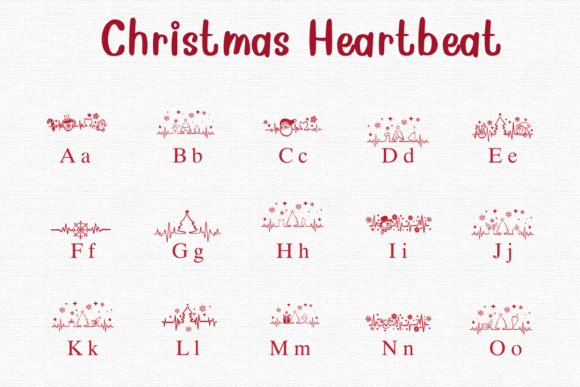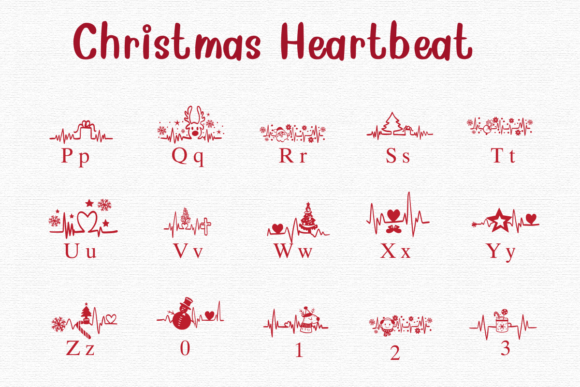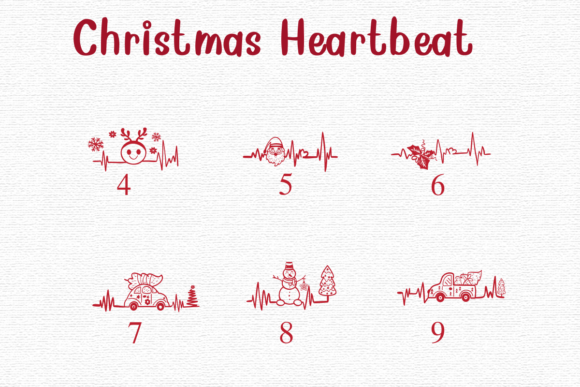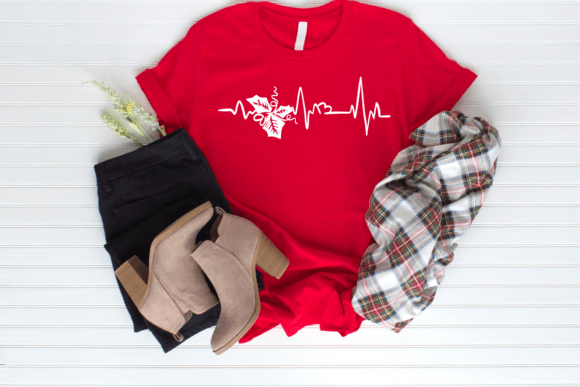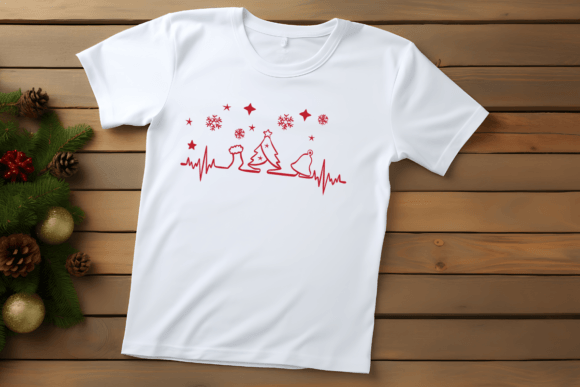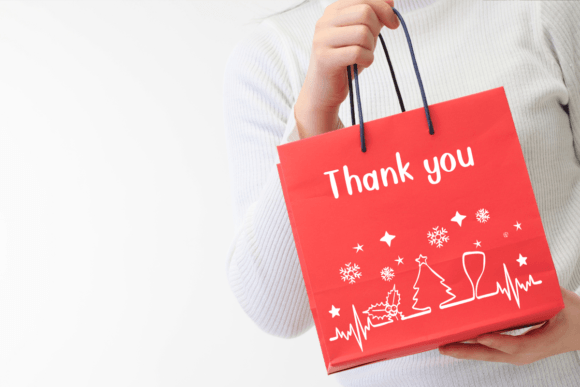
Introducing Christmas Heartbeat Font: A Festive Dingbat Font for Holiday Designs
Are you looking for a unique and playful font to add a touch of festive cheer to your holiday designs and projects? Look no further than Christmas Heartbeat Font, a delightful dingbat font that combines heartbeat lines with Christmas-themed elements. In this article, we’ll dive into the features and benefits of this charming font, and explore how it can elevate your holiday creations.
What is Christmas Heartbeat Font?
Christmas Heartbeat Font is a playful dingbat font that features heartbeat lines decorated with Christmas-themed elements like stars, trees, and bells. Each heartbeat pulse is styled with festive touches, making it perfect for holiday designs and projects. The font is designed to capture the spirit of the holiday season, with a fun and lively vibe that’s sure to bring a smile to your face.
Key Features of Christmas Heartbeat Font
- Unique Heartbeat Design: The font features a unique heartbeat design, with each pulse styled with festive Christmas elements.
- Christmas-themed Elements: The font includes a range of Christmas-themed elements, such as stars, trees, and bells, to add a touch of festive cheer to your designs.
- Playful and Fun: The font has a playful and fun vibe, making it perfect for holiday designs and projects that require a lighthearted touch.
- Dingbat Font: The font is a dingbat font, which means it’s comprised of symbols and icons rather than traditional letters and numbers.
Uses for Christmas Heartbeat Font
Christmas Heartbeat Font is a versatile font that can be used for a wide range of holiday designs and projects. Here are a few ideas to get you started:
- Holiday Cards and Invitations: Use the font to create festive holiday cards and invitations that are sure to impress.
- Social Media Graphics: Add a touch of festive cheer to your social media graphics with this fun and playful font.
- Christmas Party Decorations: Use the font to create festive decorations for your Christmas party, such as banners, garlands, and signs.
- Crafting Projects: The font is perfect for crafters who want to add a touch of festive cheer to their projects, such as scrapbooking, card making, and DIY gifts.
Benefits of Using Christmas Heartbeat Font
There are many benefits to using Christmas Heartbeat Font in your holiday designs and projects. Here are a few:
- Adds a Touch of Festive Cheer: The font adds a touch of festive cheer to any design or project, making it perfect for the holiday season.
- Unique and Playful: The font is unique and playful, making it a great way to stand out from the crowd.
- Versatile: The font can be used for a wide range of holiday designs and projects, making it a great addition to your font library.
Tips for Using Christmas Heartbeat Font
Here are a few tips for using Christmas Heartbeat Font in your holiday designs and projects:
- Experiment with Different Sizes and Colors: Experiment with different sizes and colors to find the perfect look for your design or project.
- Combine with Other Fonts: Combine the font with other fonts to create a unique and interesting look.
- Use for Headlines and Titles: Use the font for headlines and titles to add a touch of festive cheer to your design or project.